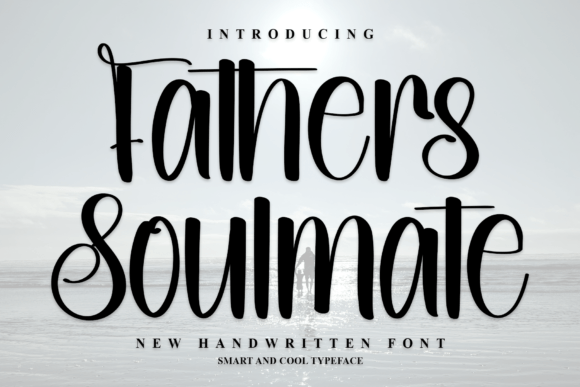
Introducing Fathers Soulmate Font, the Exquisite Script Font Designed for Unforgettable Gmail Signatures
In the realm of digital communication, your Gmail signature holds immense significance. It's the digital handshake that leaves a lasting impression on recipients, reflecting your professionalism and personal style. With Fathers Soulmate Font, you have the power to transform your Gmail signature into a captivating work of art, ensuring that your messages stand out from the crowd and resonate with recipients.
Crafted with meticulous attention to detail, Fathers Soulmate is a script font imbued with elegance and sophistication. Its contemporary atmosphere and impeccable form draw inspiration from timeless classic calligraphy, resulting in a balanced and varied font designed to elevate the beauty of your projects. Each letterform dances across the screen with grace and fluidity, capturing the essence of handwritten notes while maintaining a modern edge.
Fathers Soulmate's PUA encoding unlocks a world of creative possibilities, granting you effortless access to a treasure trove of amazing glyphs and ligatures. Unleash your imagination and experiment with diverse combinations to create signatures that are uniquely yours, reflecting your individuality and leaving a lasting impression on recipients.
Visualize the impact of Fathers Soulmate Font on your Gmail signature. Imagine your messages adorned with graceful strokes that evoke a sense of warmth and authenticity. Your words will carry an unspoken message of elegance and professionalism, leaving recipients with a positive and lasting impression.
Fathers Soulmate Font isn't merely a font; it's an investment in your digital presence. With this font, you'll elevate your Gmail signature to new heights, ensuring that your messages stand out and captivate recipients. It's the perfect choice for those who value sophistication, creativity, and a touch of personal flair in their digital communication.